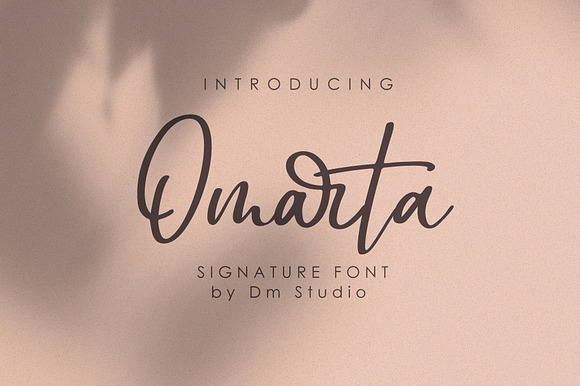
Omarta Signature Font
Omarta Signature Font by dmLetter is a font selected for branding, posters, packaging, typography.
Why Omarta Signature Font is worth a look
Omarta Signature Font by dmLetter fits naturally into Branding, posters, packaging, typography.